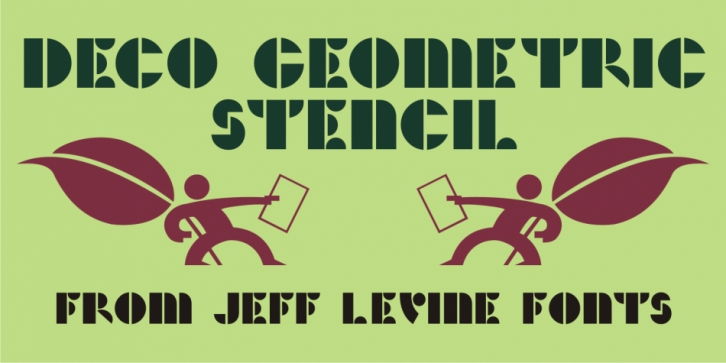
Deco Geometric Stencil JNL is a stencil and art deco font published by Jeff Levine Fonts.
Deco Geometric Stencil JNL was inspired by an example of a vintage Art Deco stencil type design seen in the Steven Heller-Louise Fili book “Stencil Type†(published by Thames and Hudson).